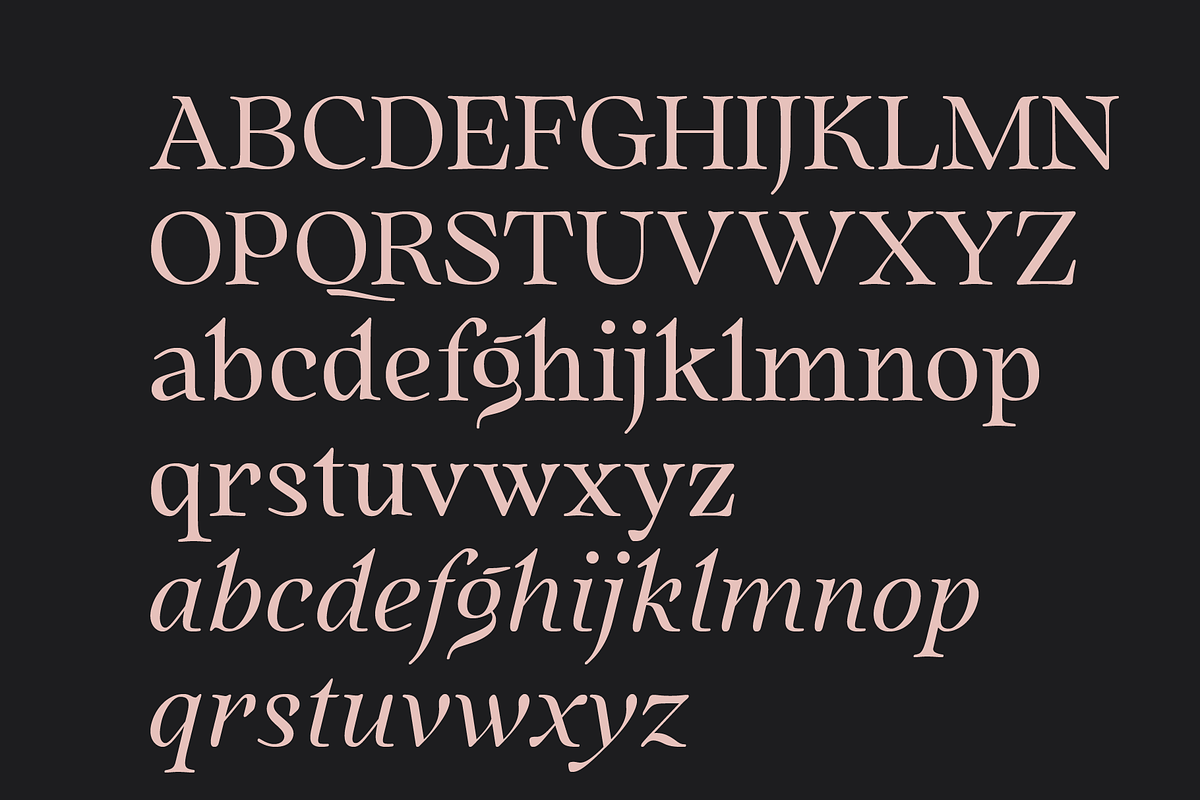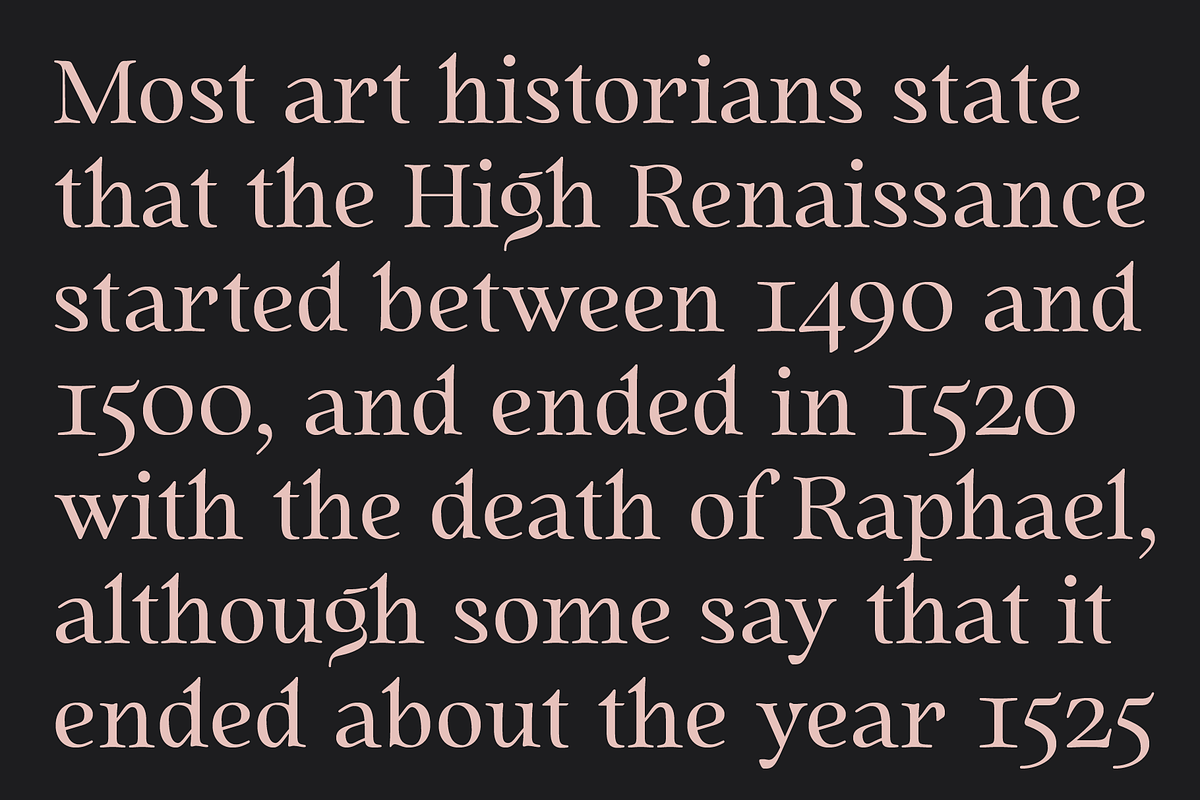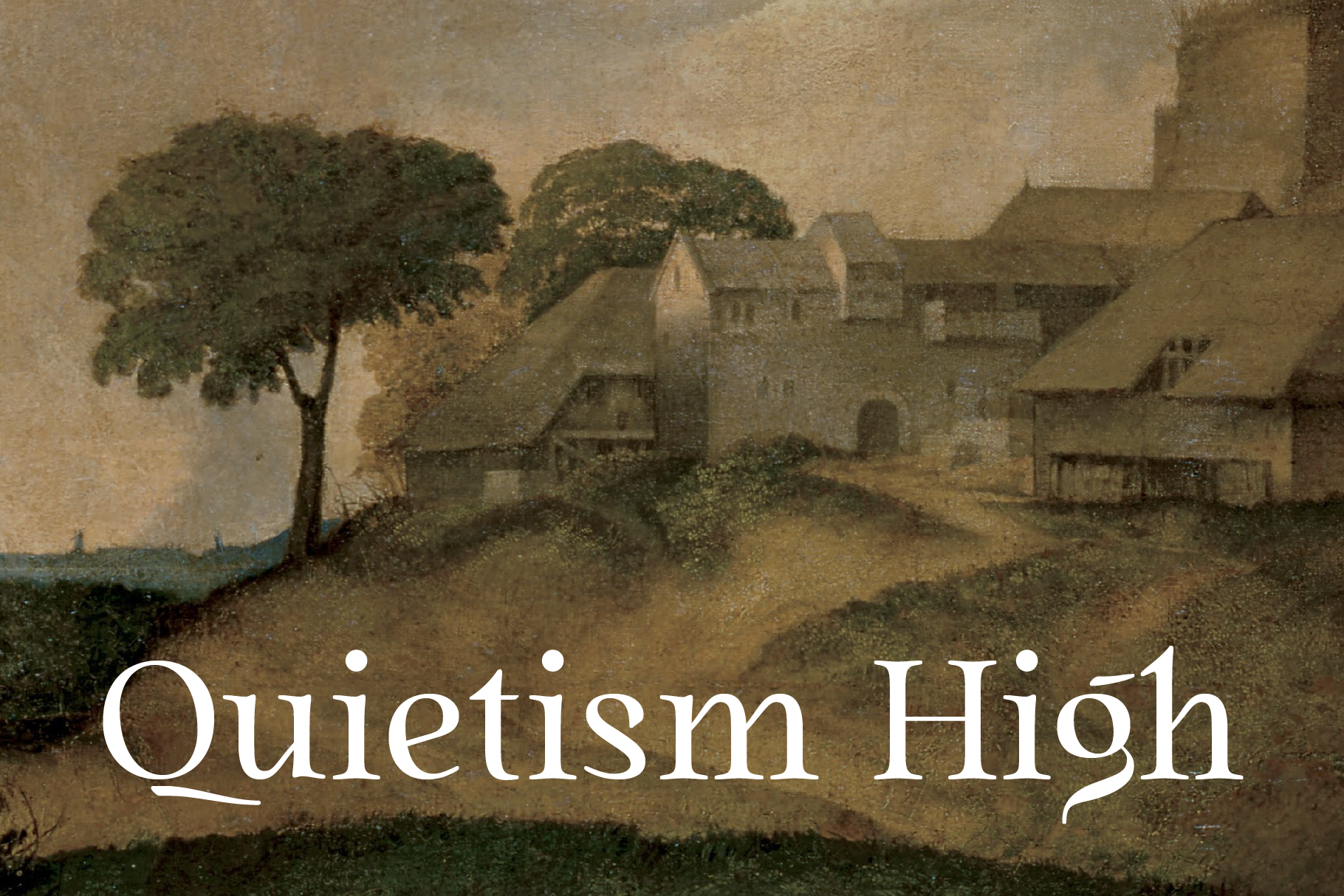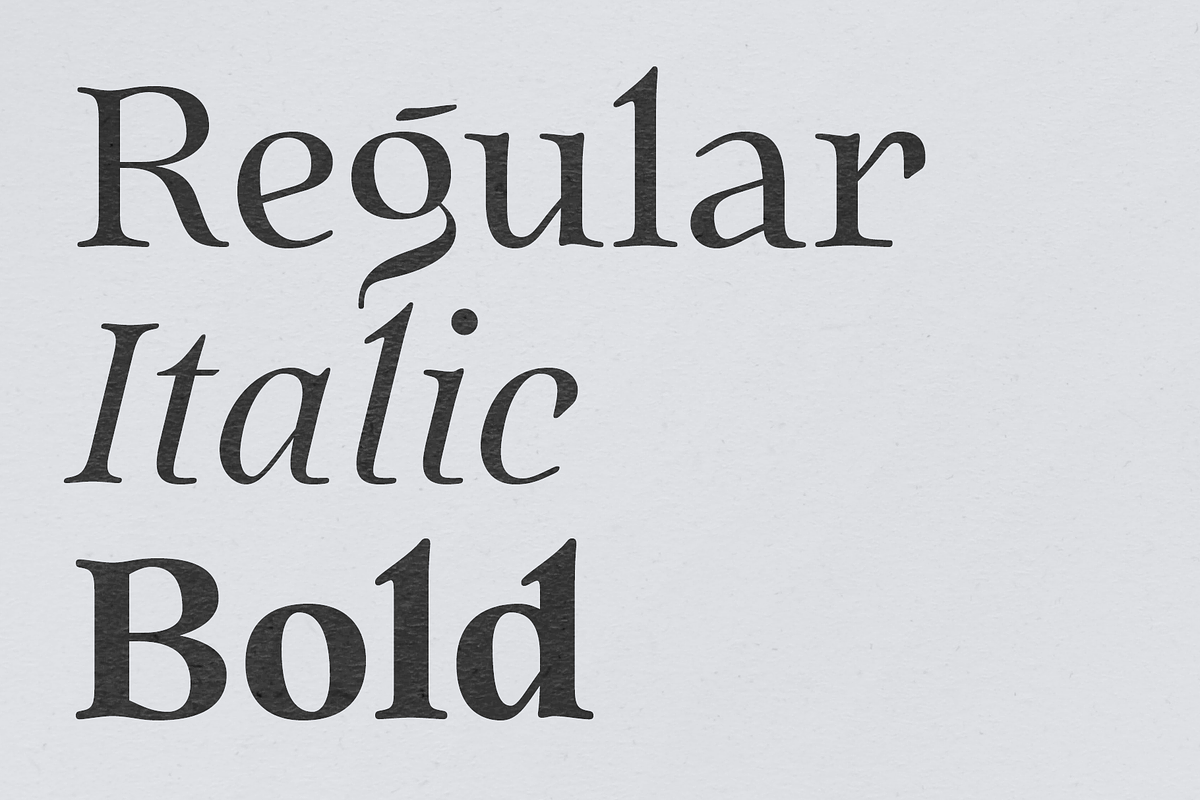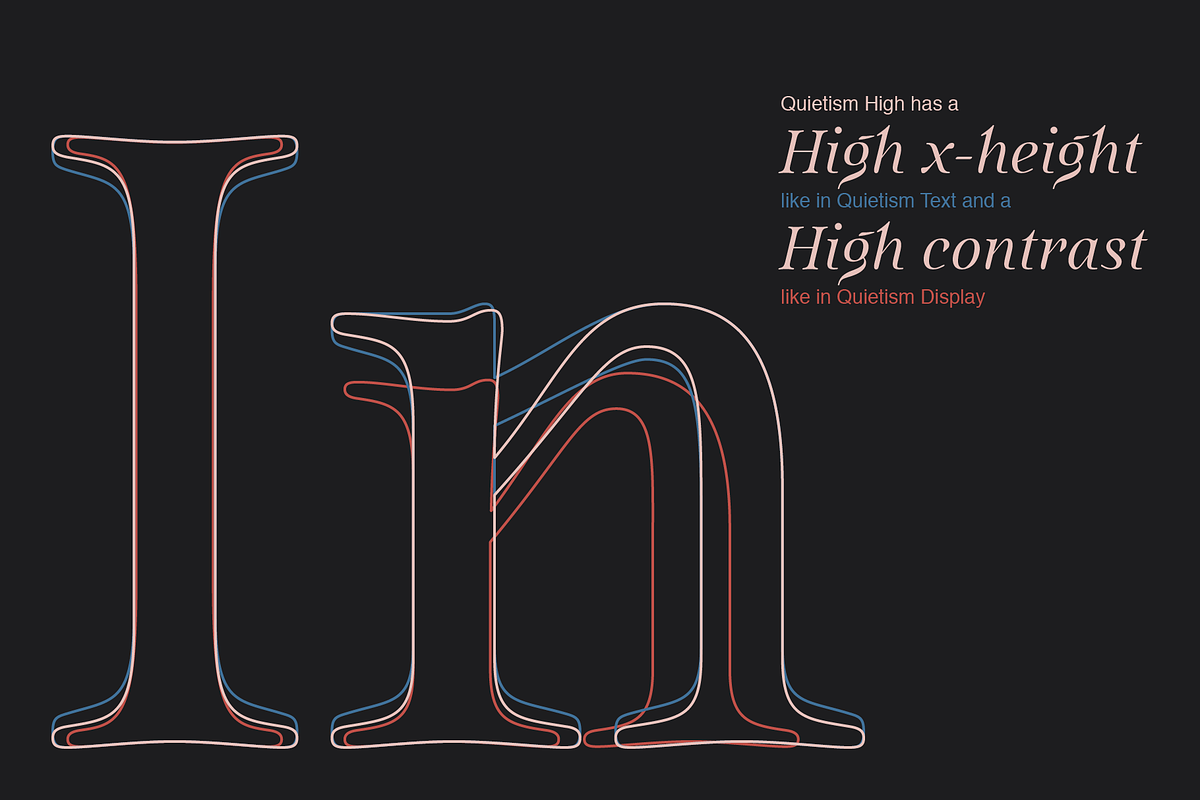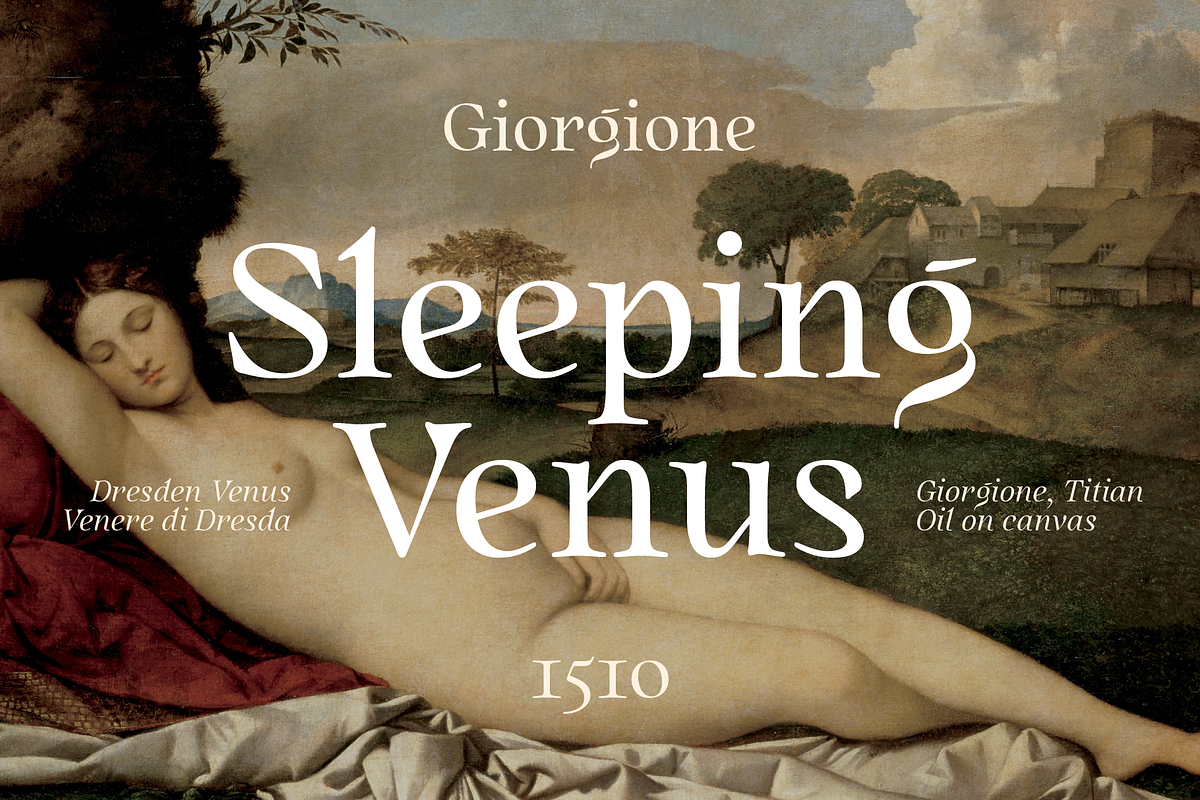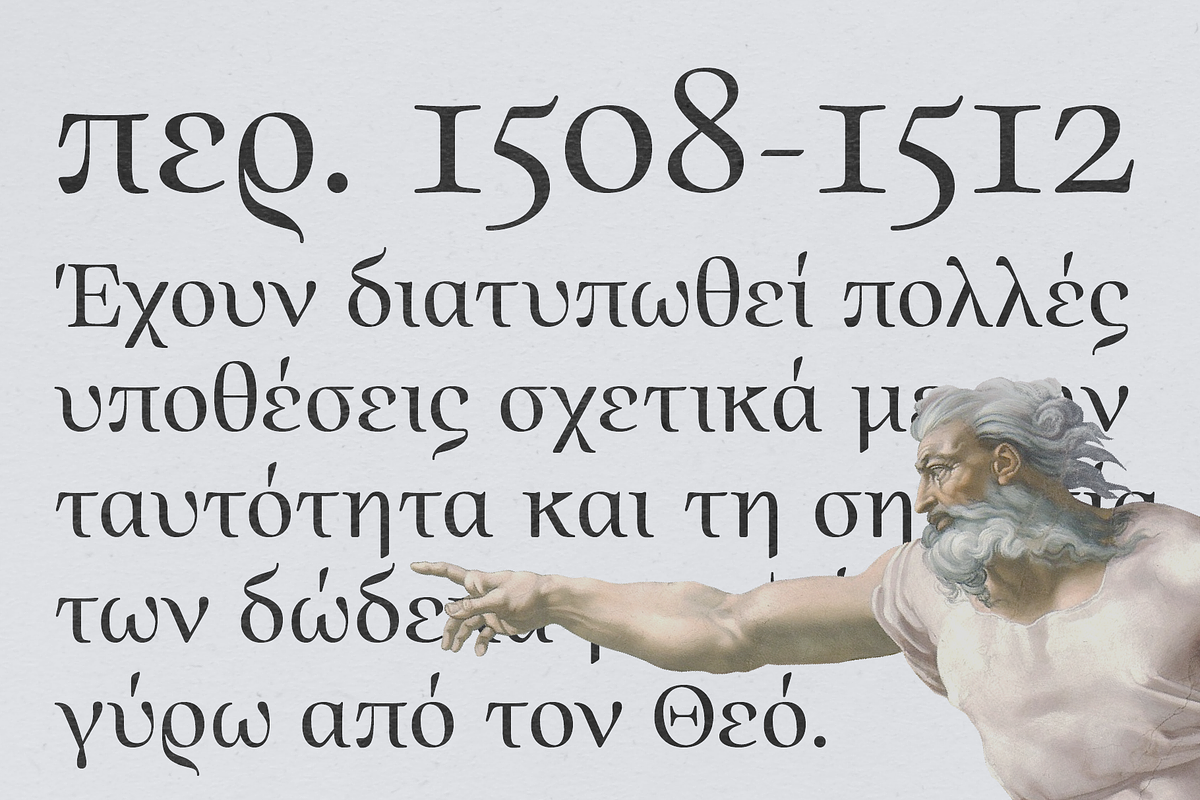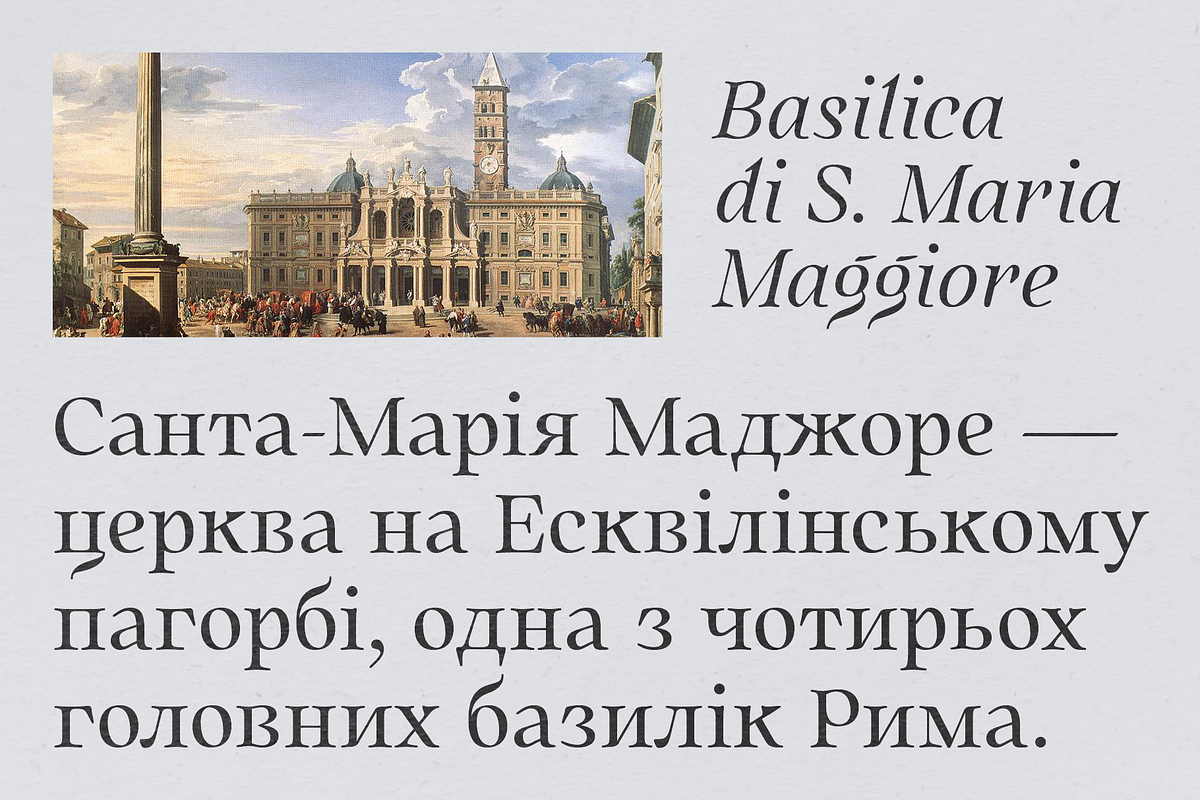
Quietism High font
Quietism High is an experimental subfamily that received a high contrast from Quietism Display and a high x-height from Quietism Text. It's still a Display typeface, albeit more graceful, wide and open.
Scripts: Latin, Greek, Cyrillic.
Small Caps: Lowercase letters and Oldstyle Figures are replaced with Small Capitals forms.
Capitals to Small Caps: Uppercase letters, all figures, and some punctuation are replaced with Small Capitals forms.
Case Sensitive Forms: ()[]{}‹›«»-–—•·#%‰@ and Arrows are centered on capitals. Oldstyle figures are replaced with Lining figures.
Oldstyle Figures: 0123456789 #%‰. Designed to work with lowercase letters. Used by default.
Lining Figures: 0123456789 #%‰. Figures are the same height as uppercase letters (cap height).
Proportional Figures: Lining, Oldstyle, Small Caps, Capitals to Small Caps.
Tabular Figures: Lining, Oldstyle, Small Caps, Capitals to Small Caps.
Ordinals: adehnorst.
Superscript, Subscript, Numerator, Denominator: 0123456789.
Fractions: ¼½¾⅐⅑⅒⅓⅔⅕⅖⅗⅘⅙⅚⅛⅜⅝⅞⅟ (precomposed). Any other fractions (even those typed through a slash) will also be displayed correctly, with the automatic replacement to Numerator + fraction + Denominator.
Slashed Zero: All 0 figures.
Contextual Alternates: Number sign character (#) before uppercase letters is replaced by its version centered on capitals. Hyphen character (-) between two uppercase letters is replaced by its version centered on capitals. First of two TT letters is replaced by its alternate form. Letters vwy before the letters fijmnprtuvwxy are replaced with an alternate shorter versions that fits better in the context.
Contextual Alternates (Greek): ΆΈΉΊΌΎΏ. Greek uppercase accented characters lose their tonos accent and retain only dieresis in All Caps and Small Caps modes. Turned on by default. If you need tonos accents in All Caps then turn off Contextual Alternates (calt) feature.
Stylistic Alternates: FTГТИЦЩцщ and their versions with diacritical marks.
Stylistic Set 01 “Arrows”: Left - Right - Up | Down | Left Right - Up Down | North West North East / South East South West /
Stylistic Set 02 “Round-Square Cyrillic”: ДИЙЍЛФвгджзийѝклнптцчшщьъю characters are replaced with its Bulgarian or Russian forms.
Stylistic Set 03 “Cyrillic Tse Shcha short tails”: ЦЩцщ characters are replaced with its alternate form with short tail.
Stylistic Set 04 “Cyrillic I full serifs”: ИЙЍӢ characters are replaced with its alternate form with inner serifs.
Stylistic Set 05 “FT bent inward serif”: FTГ characters and their versions with diacritical marks are replaced with its alternate form with right head serif that bent inside.
Stylistic Set 06 “Small Caps centered on Capitals”: Small Caps are vertically centered on uppercase letters.
Standard Ligatures: fi fl fb ff fh fj fk ffb ffh ffi ffj ffk ffl.
Discretionary Ligatures: Th ct st.
Localized Forms: 52 character substitutions for Azeri, Bulgarian, Catalan, Dutch, German, Kazakh, Macedonian, Moldavian, Polish, Romanian, Serbian, Tatar, Turkish.
Glyph Composition/Decomposition (Diacritics): Full Latin and based Vietnamese set of diacritics (571 characters). Precomposed.
The promo images used “Sleeping Venus” painting by Giorgione, “The Creation of Adam” painting by Michelangelo, and “The Piazza and Church of Santa Maria Maggiore” painting by Giovanni Paolo Pannini.